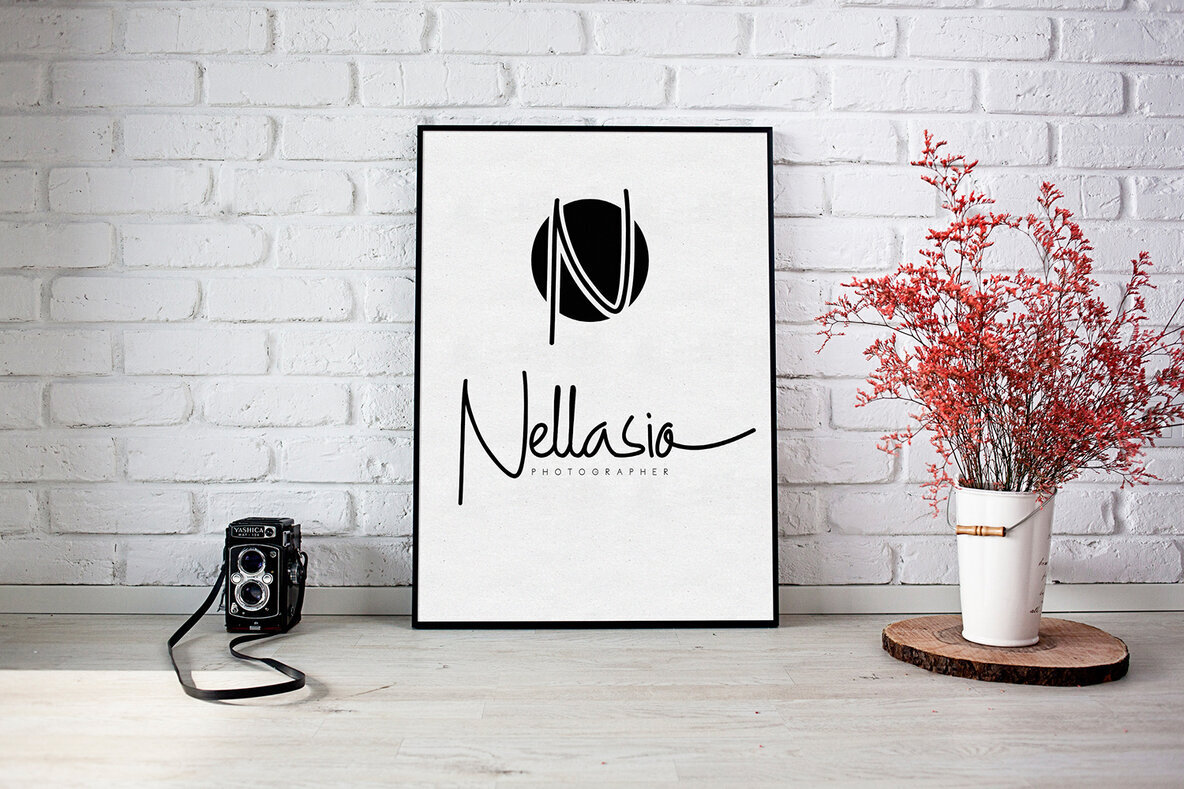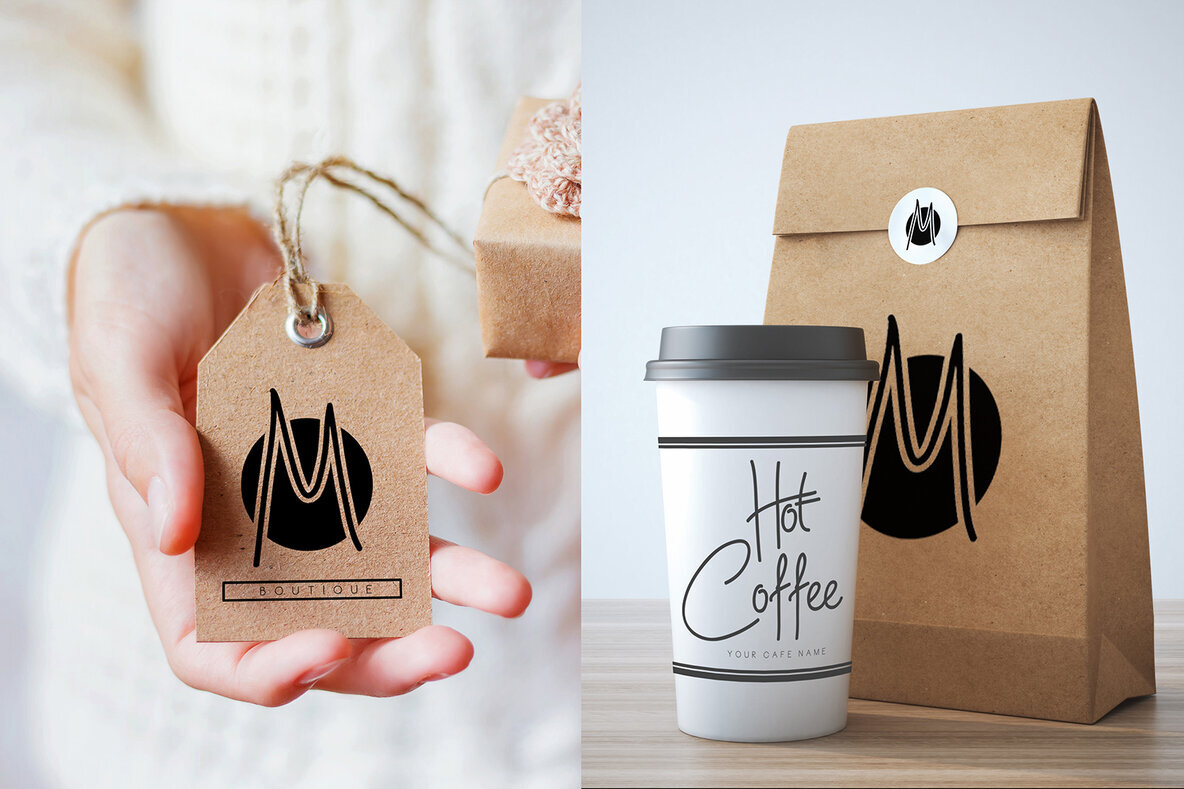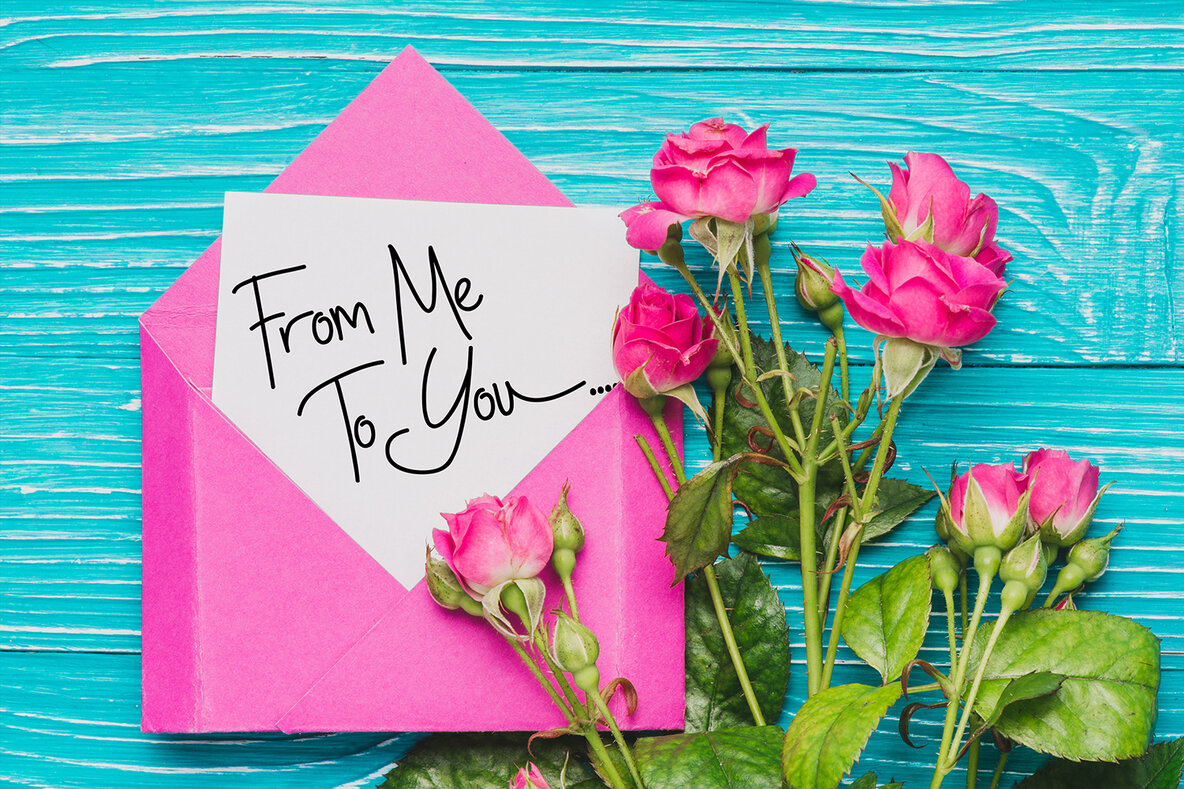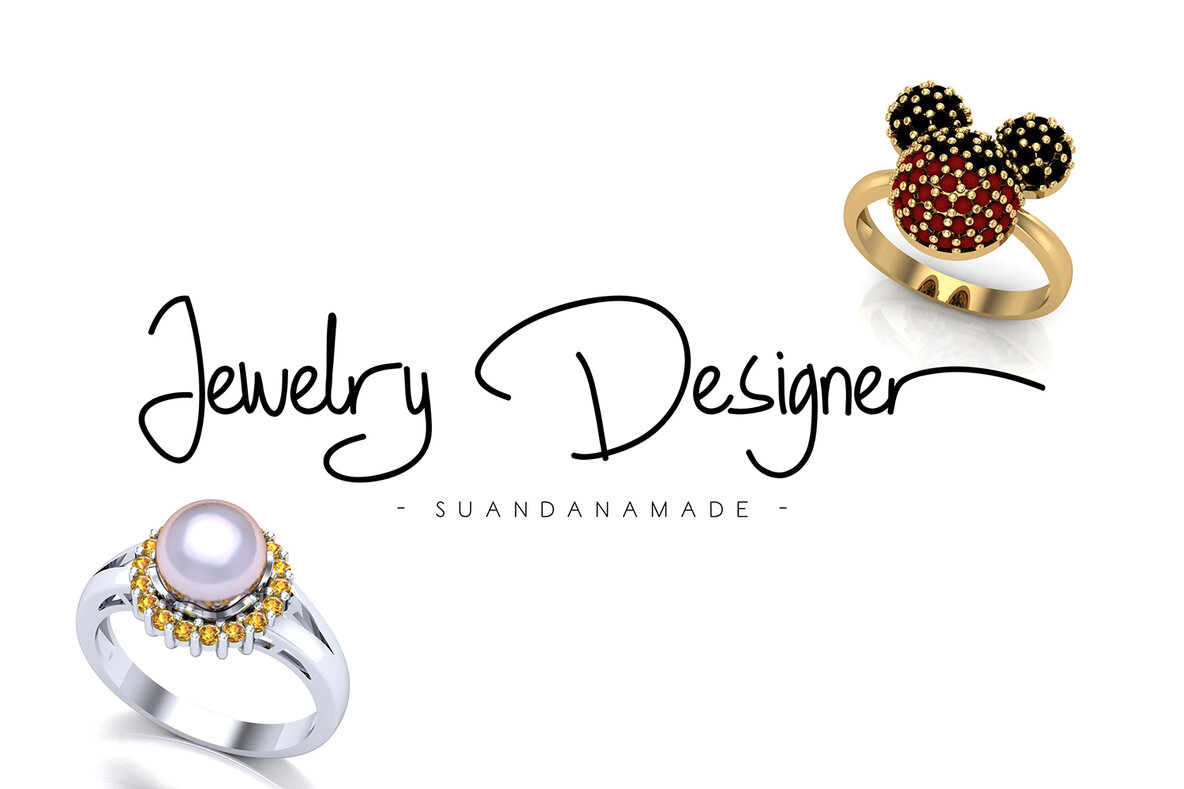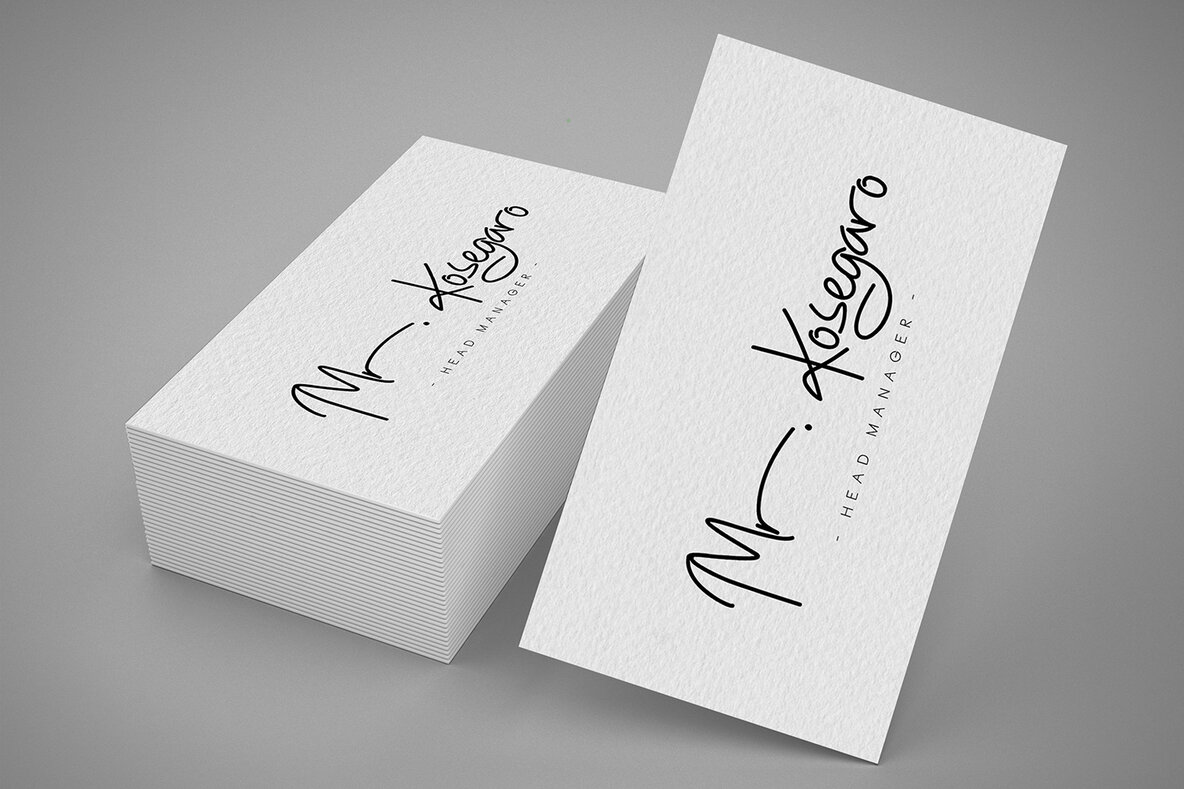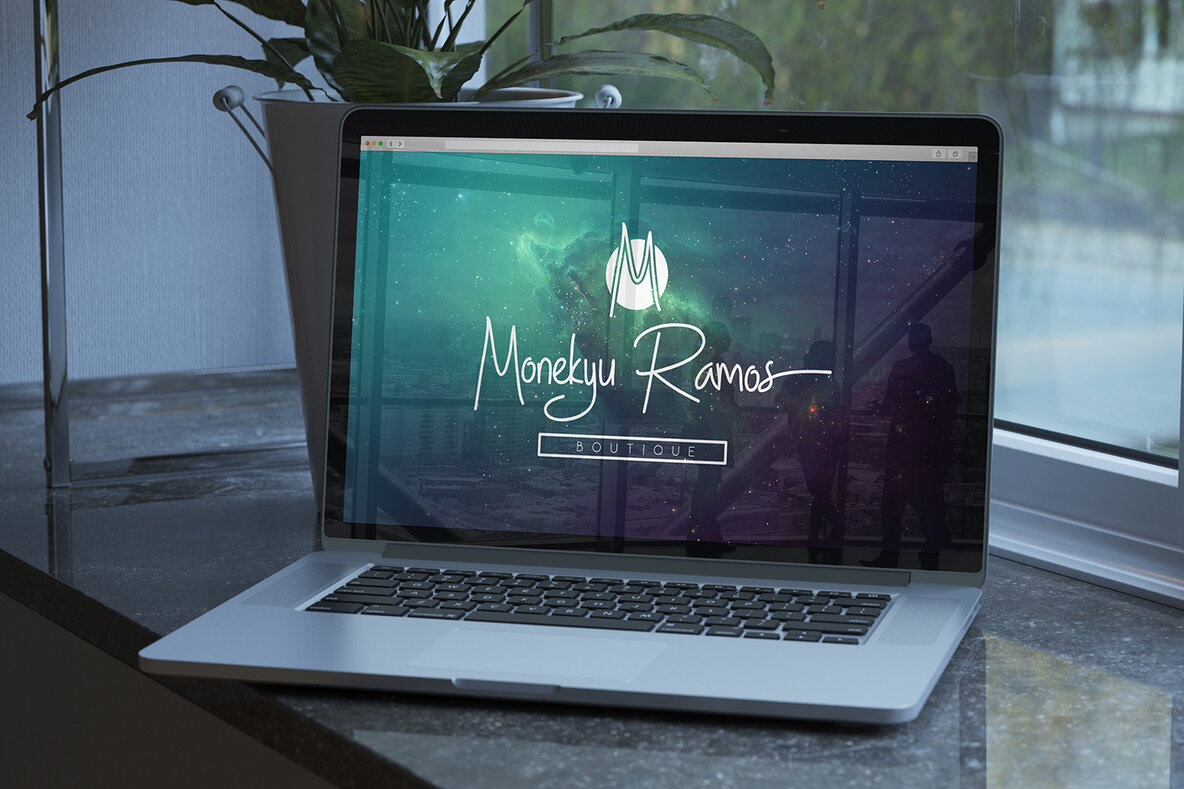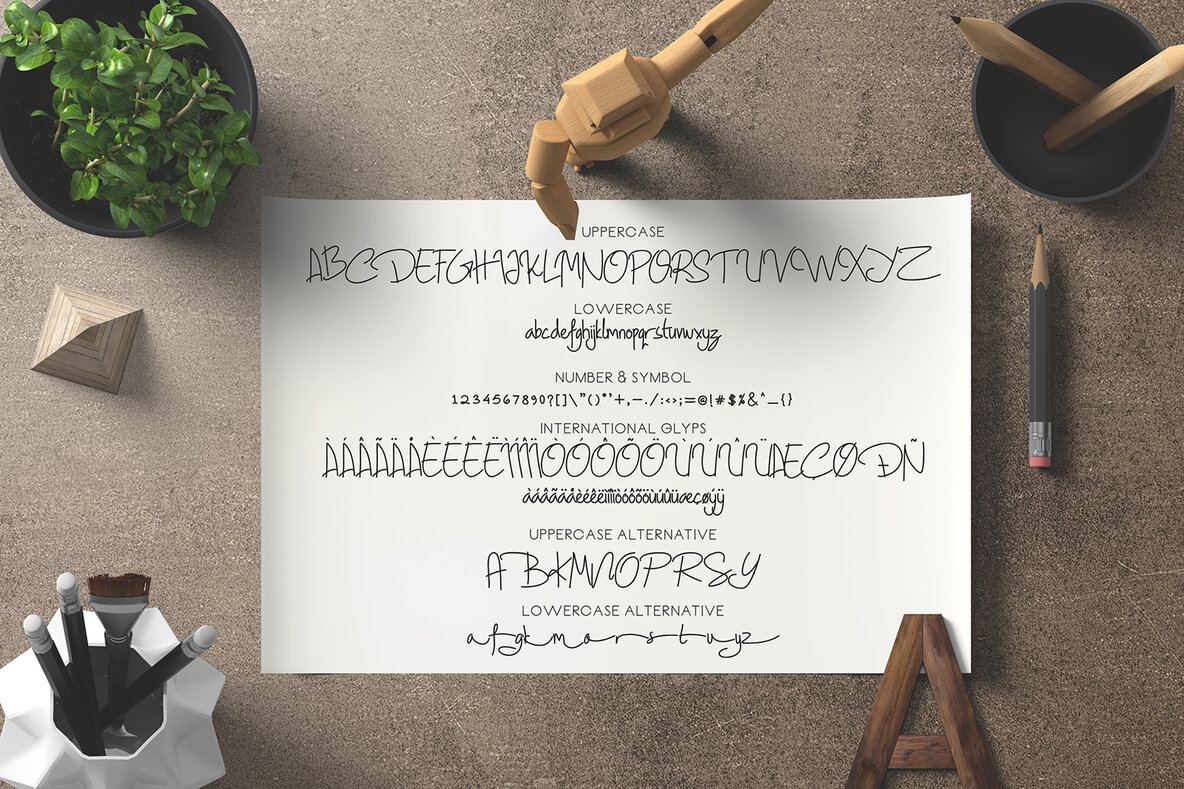
Geovana Font
Geovana Regular
The Geovana Signature Typeface captures the timeless beauty of classic handwriting. This typeface embodies the finesse of a well-crafted signature, bringing a personal and elegant touch to your design projects. Its graceful swashes add character, making each letter unique and engaging. Whether used for branding, invitations, or digital design, Geovana adds the sophistication you seek.Geovana Signature Typeface: Classic Elegance in Authentic Handwriting